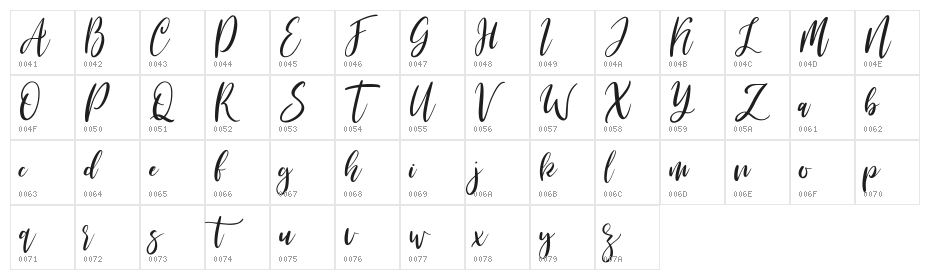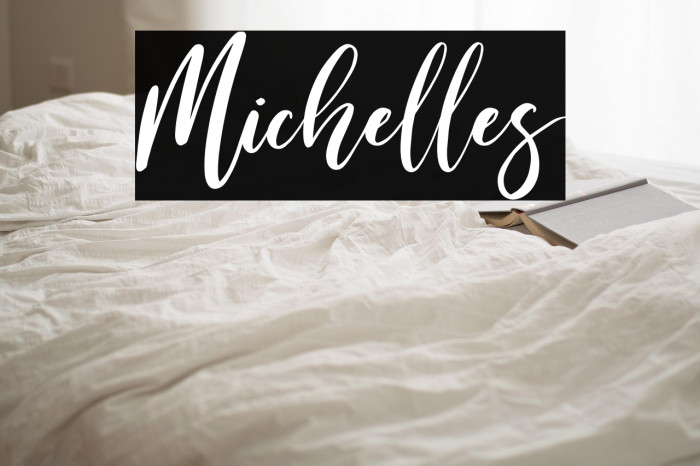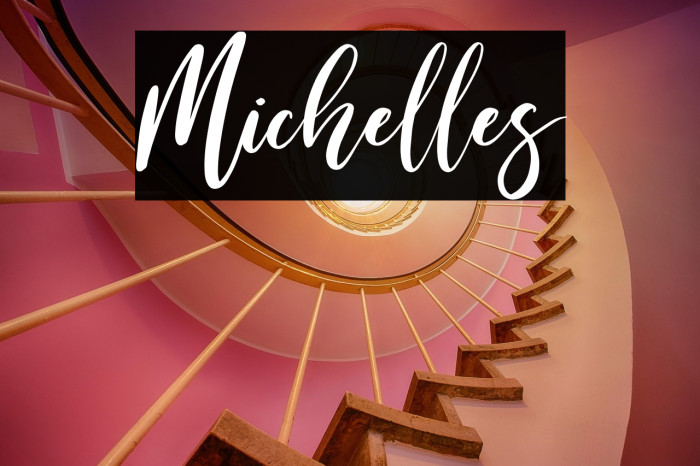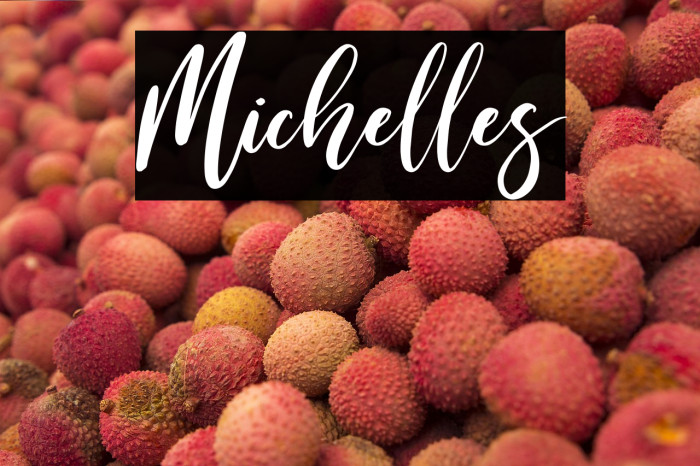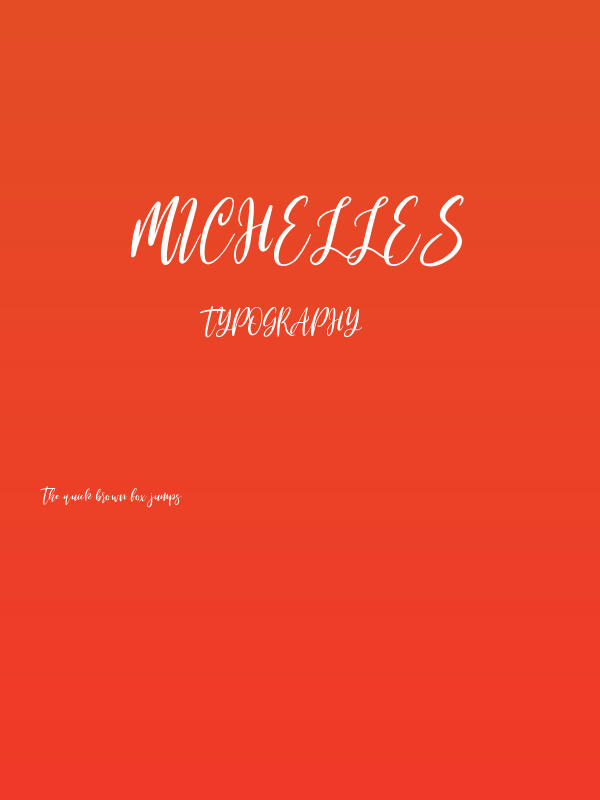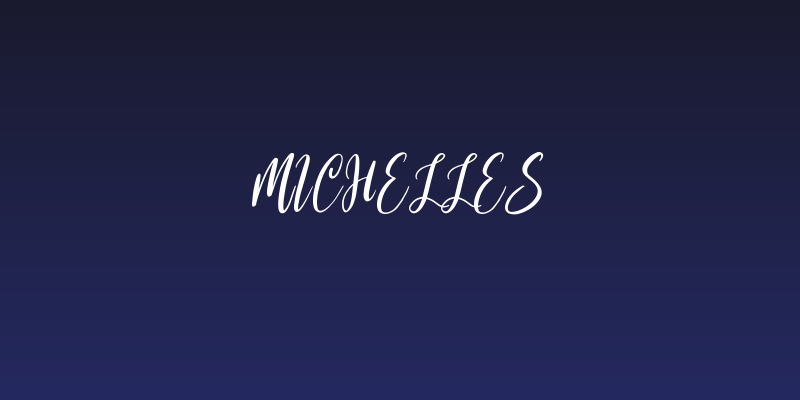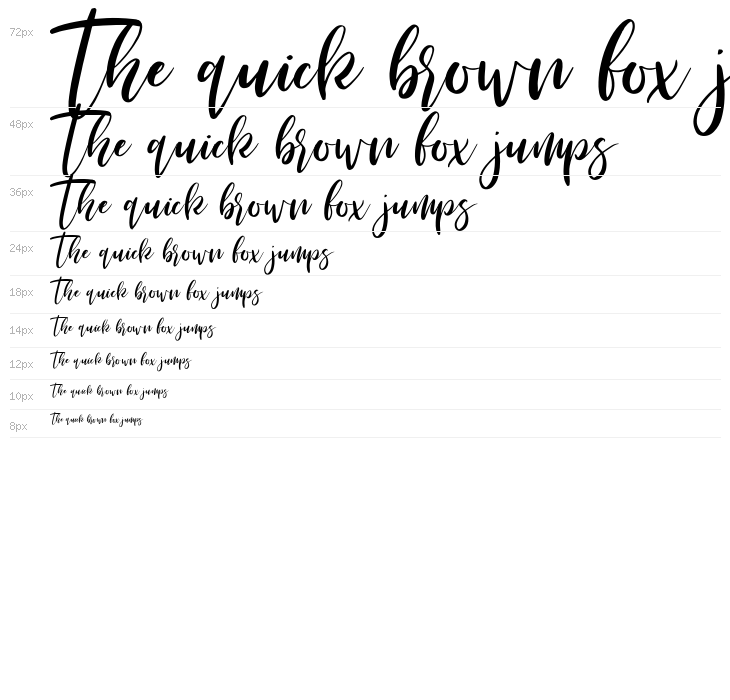
Michelles Font
Michelles Description
This font features a flowing, cursive style that exudes elegance and sophistication. The letters are interconnected with smooth, sweeping strokes, creating a sense of fluidity and grace. The uppercase letters are bold and prominent, while the lowercase letters maintain a consistent flow, enhancing readability. The font's design is reminiscent of traditional calligraphy, yet it incorporates modern elements that make it suitable for contemporary use. The characters are well-balanced, with a slight slant that adds to the dynamic appearance. This font is perfect for projects that require a touch of elegance and personal flair.
| Overall Style | Elegant, Modern |
| Proposed Projects | Ideal for wedding invitations, greeting cards, branding, and elegant logos. |